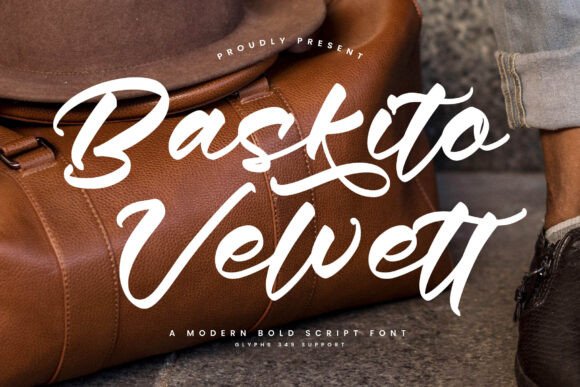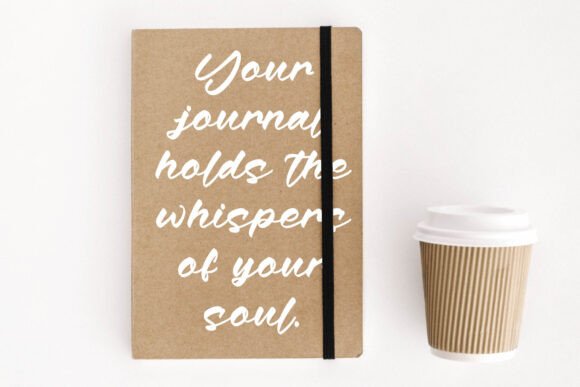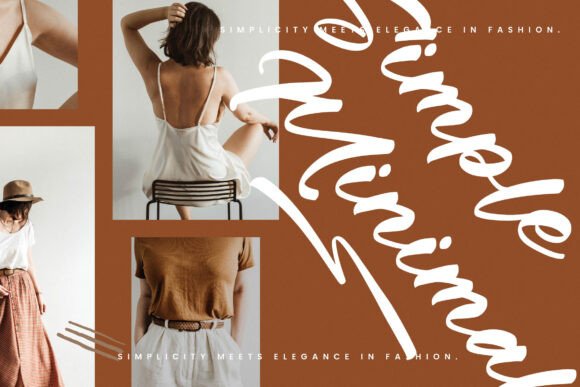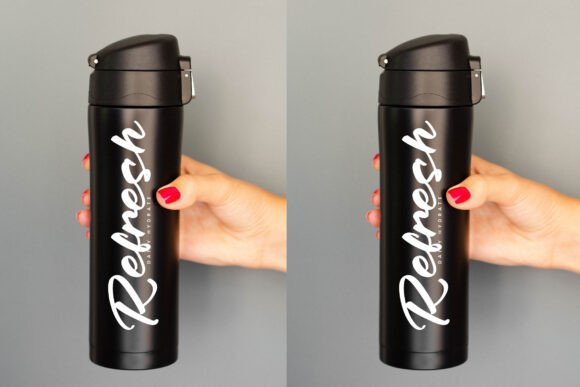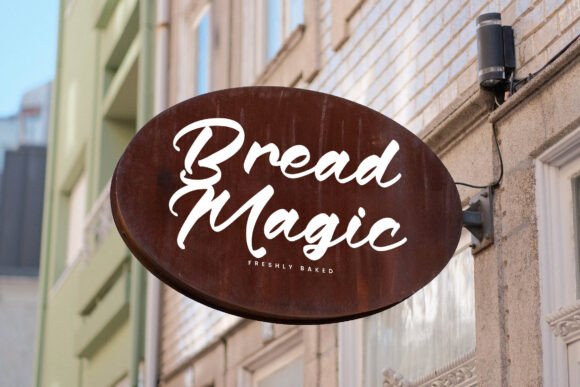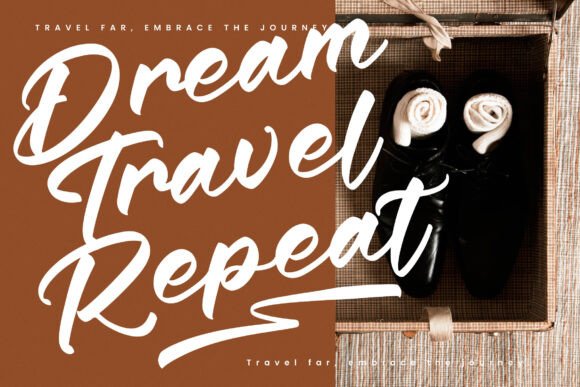
Introduction to Baskito Velvett Font
Have you ever found yourself staring at a blank canvas, waiting for the perfect font to bring your creative vision to life? That’s exactly what happened to me when I stumbled upon the Baskito Velvett Font. Its modern bold script design immediately caught my attention, and I knew I had to dive deeper. As a designer, I’m always on the lookout for high-quality fonts that can elevate my projects and help me stand out in a crowded market.
The Baskito Velvett Font is a game-changer for designers, offering a unique blend of luxury and sophistication that’s perfect for a wide range of creative projects. From logos and branding to homewares designs and product packaging, this font is sure to add a touch of premium taste to your work. And the best part? It’s available for free download, making it an invaluable resource for designers of all levels.
Whether you’re working on a high-end branding project or a simple invitation card, the Baskito Velvett Font is sure to impress. With its transparent background and high-quality design, you can trust that your project will look professional and polished. In this article, we’ll take a closer look at the Baskito Velvett Font and explore its many uses, so be sure to stick around for the full rundown.
Key Features of Baskito Velvett Font
- Unique, high-quality design perfect for creative projects and design resources.
- Features a transparent background, allowing for easy customization and layering.
- Designed with a luxurious feel, ideal for high-end branding and design applications.
- Includes a range of characters and glyphs, including international characters and symbols.
- Available in a single font size, with a resolution of 300 DPI for optimal print quality.
Honest Review: Baskito Velvett Font
I recently had the chance to try out the Baskito Velvett Font, and I’m excited to share my thoughts with you. As a designer, I’m always on the lookout for high-quality fonts that can elevate my creative projects. The Baskito Velvett Font definitely delivers.
Here are some things that work well: ✨
- High-quality design: The font has a smooth, elegant feel that’s perfect for a wide range of creative projects.
- Transparent background: This makes it easy to layer the font over other design elements without any issues.
However, there are a few limitations to keep in mind: ⚠️
- Limited character set: The font only includes a limited character set, which may not be suitable for more complex design projects.
- No bold or italic variations: While the font looks great in its standard form, it would be nice to have some bold and italic variations to add some extra depth.
Overall, I’m really impressed with the Baskito Velvett Font. It’s a high-quality design resource that’s perfect for a wide range of creative projects. Just be aware of the limitations, and you’ll be all set to create some amazing designs with this font.
Tips for Getting the Most Out of Baskito Velvett Font
To achieve the best results with Baskito Velvett Font, use it on a transparent background to create a seamless design. Experiment with different font sizes, colors, and combinations to add depth and visual interest to your creative project.
Baskito Velvett Font is ideal for designing invitations, business cards, logos, and other branding materials. Its high-quality design and versatility make it a popular choice among designers and creatives.